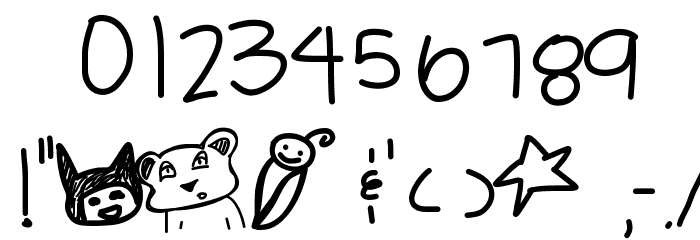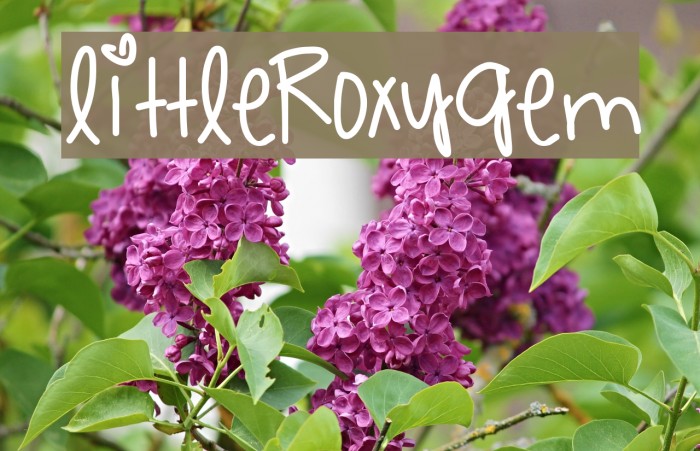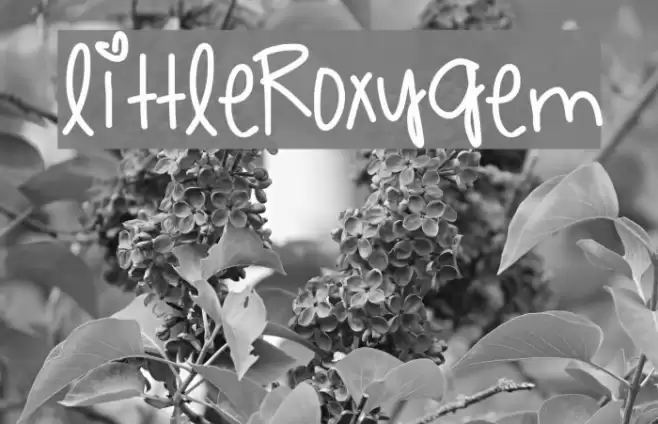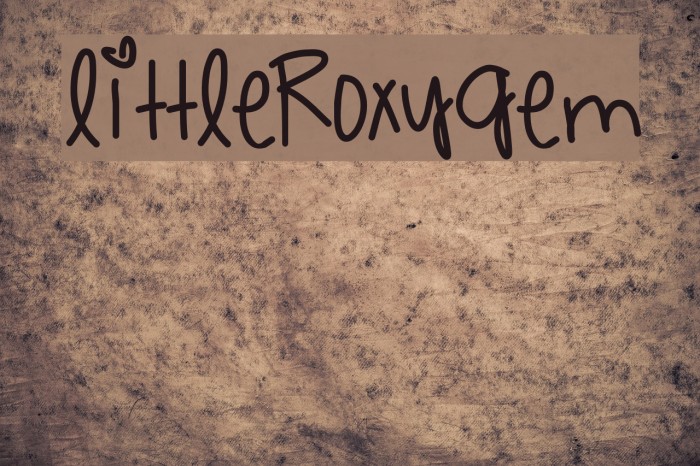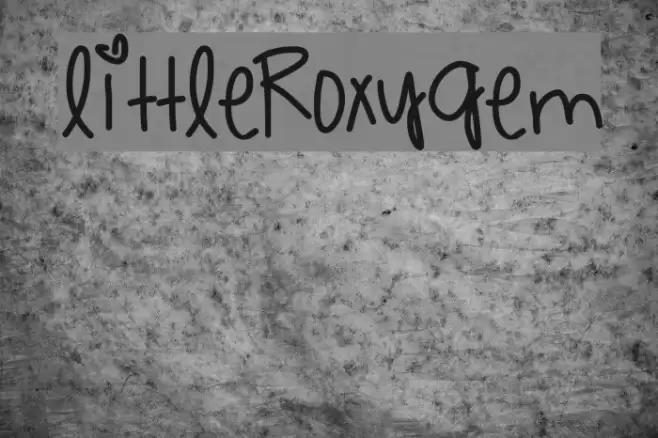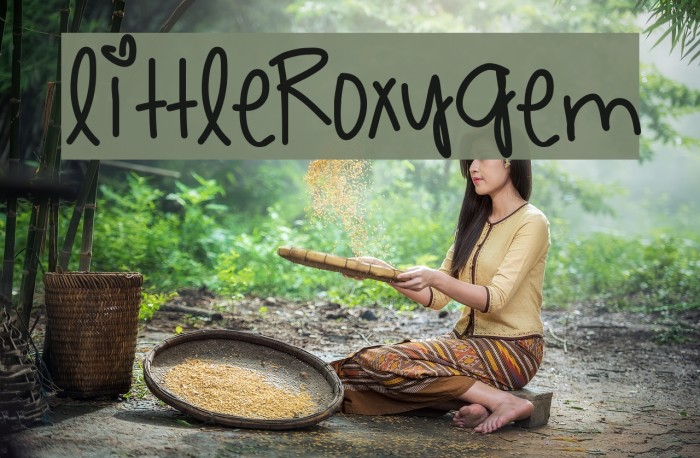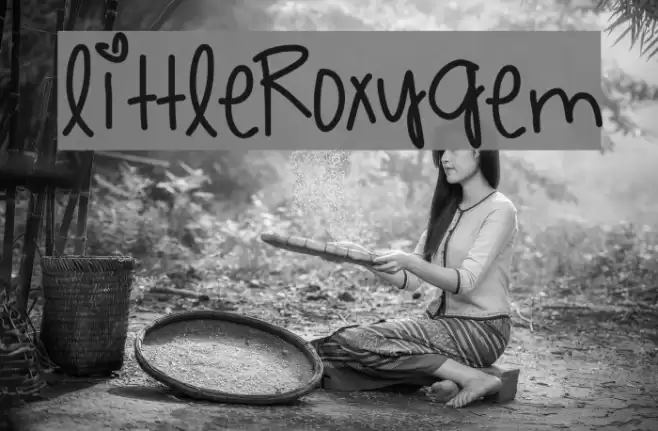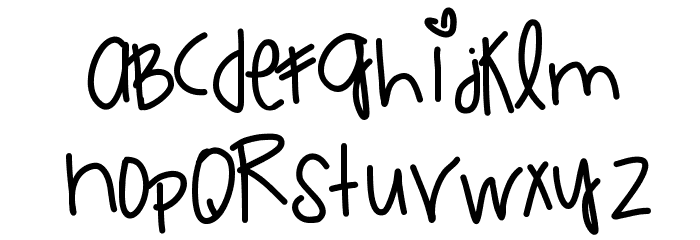
LittleRoxyGem Font
LittleRoxyGem Description
This playful and whimsical handwritten font features a casual and friendly style, with rounded edges and a slightly uneven baseline that adds to its charm. The letters are bold and have a consistent stroke width, giving them a clean and approachable appearance. The inclusion of small decorative elements, such as hearts above certain letters, enhances its playful nature. The numerals and special characters maintain the same lively and informal style, making this font suitable for creative and fun projects.
Overall StylePlayful
Use CaseLogos, Headlines, Informal Text
Proposed ProjectsIdeal for children's books, greeting cards, playful branding, and social media graphics.